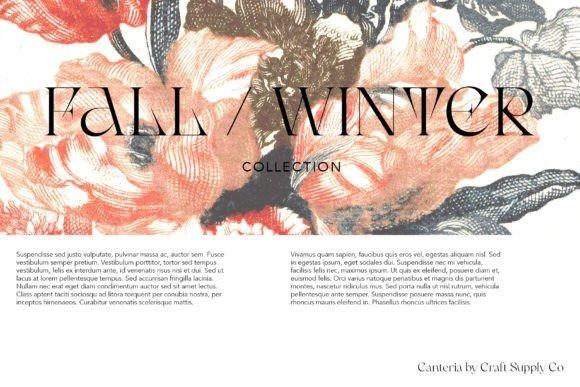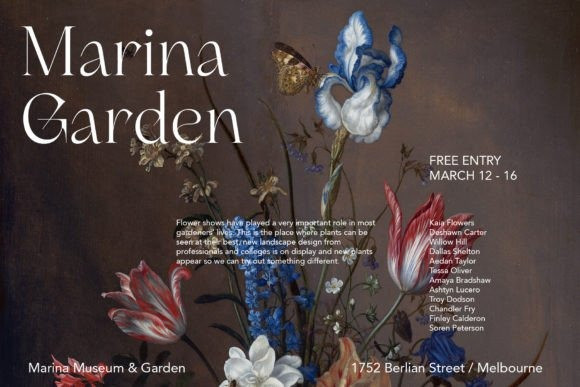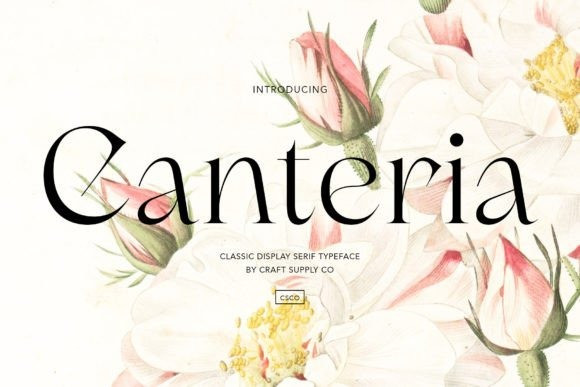
Canteria Font
Canteria Font is a charismatic serif typeface with an elegant and classical form structure to maintain a flashy look for display purposes. No matter the topic, this font will be an incredible asset to your fonts’ library, as it has the potential to elevate any creation.